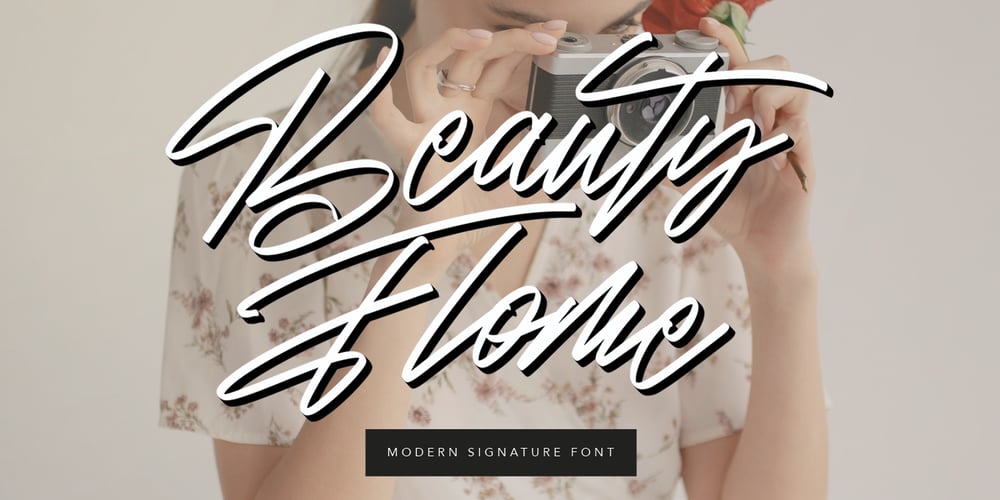
Beauty Flome Font Family was designed by Gilang Maulana and published by Maulana Creative. Beauty Flome contains 1 styles and family package options. Give your designs an authentic brush handcrafted feel. “Beauty Flome” is perfectly suited to signature, stationery, logo, typography quotes, magazine or book cover, website header, flyer, clothing, branding, packaging design and more.Thanks for use this font.MaulanaCreative